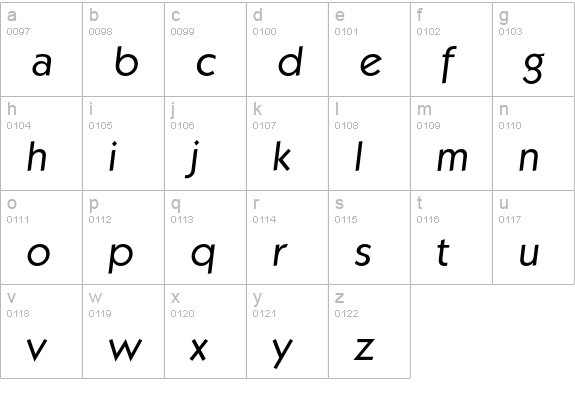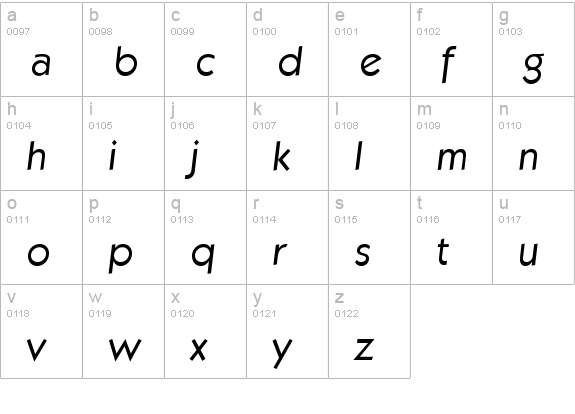
Koblenz-RegularIta Font Details
Koblenz-RegularIta is a versatile and stylish font that exudes elegance and sophistication. Its sleek and modern design makes it perfect for a wide range of creative projects, from branding to editorial design. The italic style adds a touch of flair and personality to any text, making it stand out from the crowd. The best part? Koblenz-RegularIta is completely free to download at FontsMarket.com. This means that you can elevate your designs without breaking the bank. So why wait? Add Koblenz-RegularIta to your font collection today and let your creativity soar.